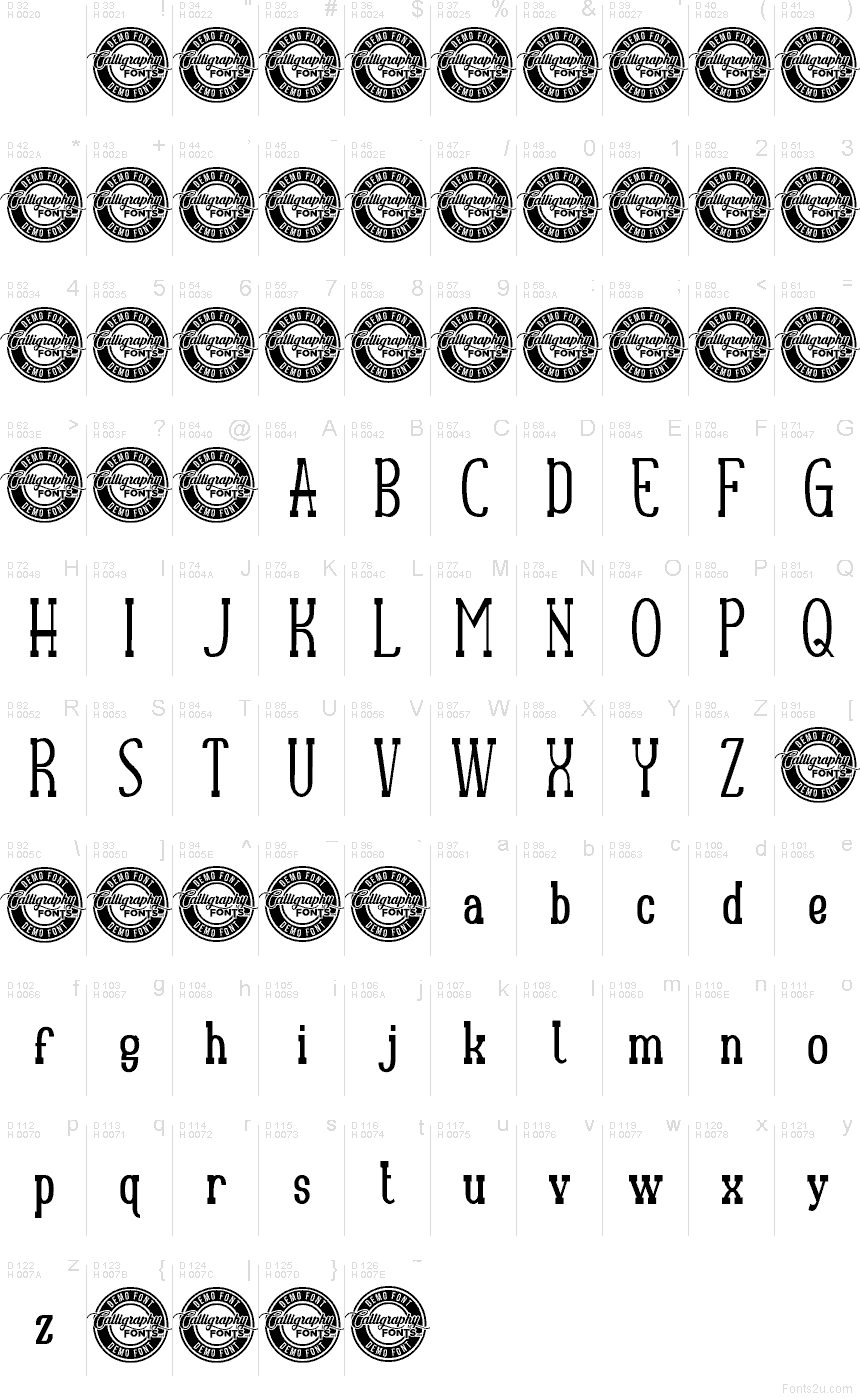
RubyRingDemo Compressed
Ruby Ring Compressed font by Calligraphy Fonts is a free condensed serif typeface from the Ruby Ring family that pulls strong character out of very tight spaces. Its tall, upright forms, chunky base strokes, and squared detailing give text a sturdy, architectural feel, while the narrow width keeps headlines punchy instead of sprawling. There’s a slightly engraved, almost industrial sharpness to the shapes that makes each word feel deliberate and weighty.
Using Ruby Ring Compressed, you can stack long titles on book covers, posters, magazine mastheads, and packaging without losing impact, and it also shines on spine titles and bold web banners. This free font works beautifully whenever you need authority and edge in a narrow column. For a balanced system, pair Ruby Ring Compressed with a clean geometric sans for body copy and keep Ruby Ring large for headings to let its strong rhythm do the heavy lifting.